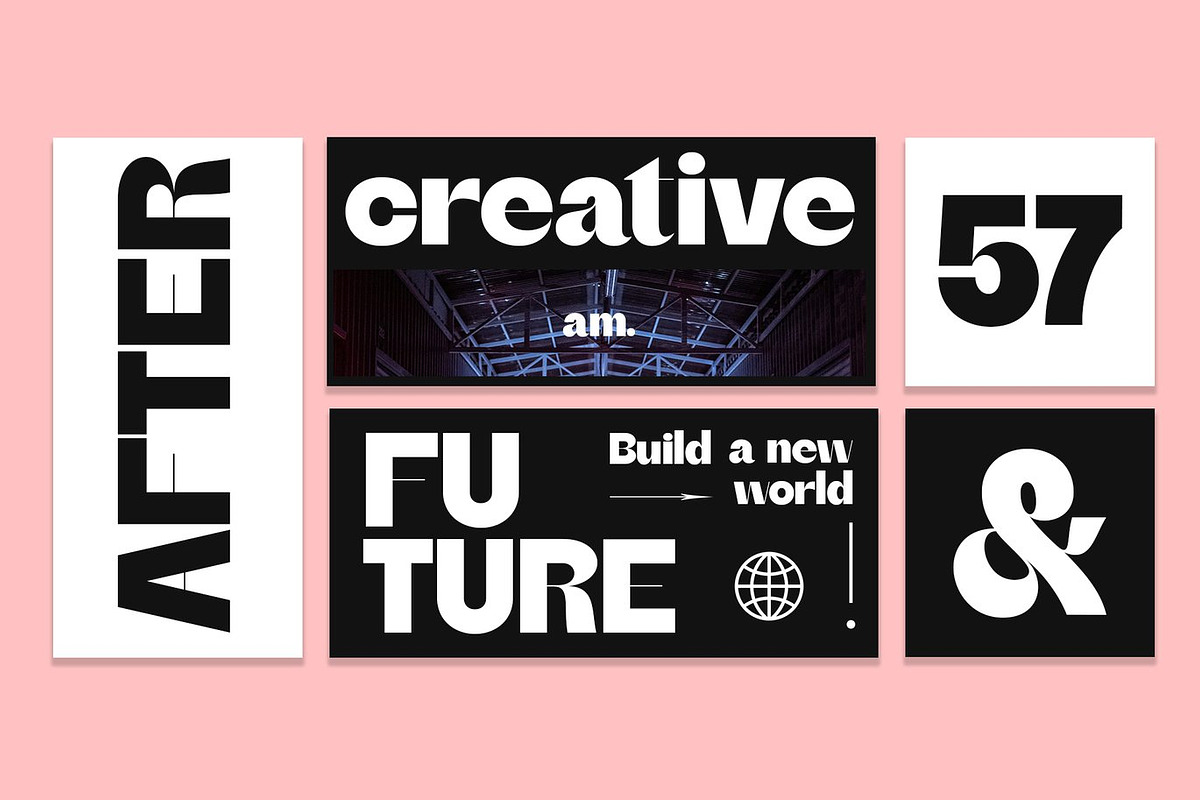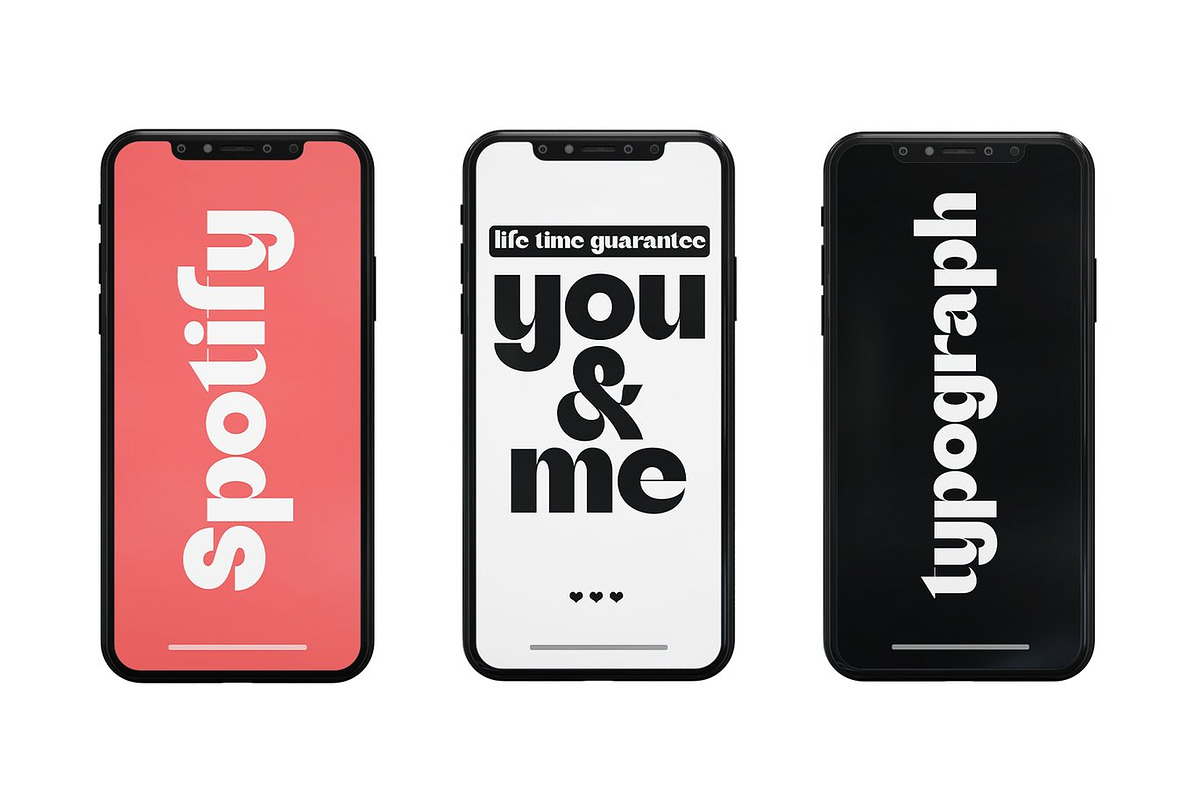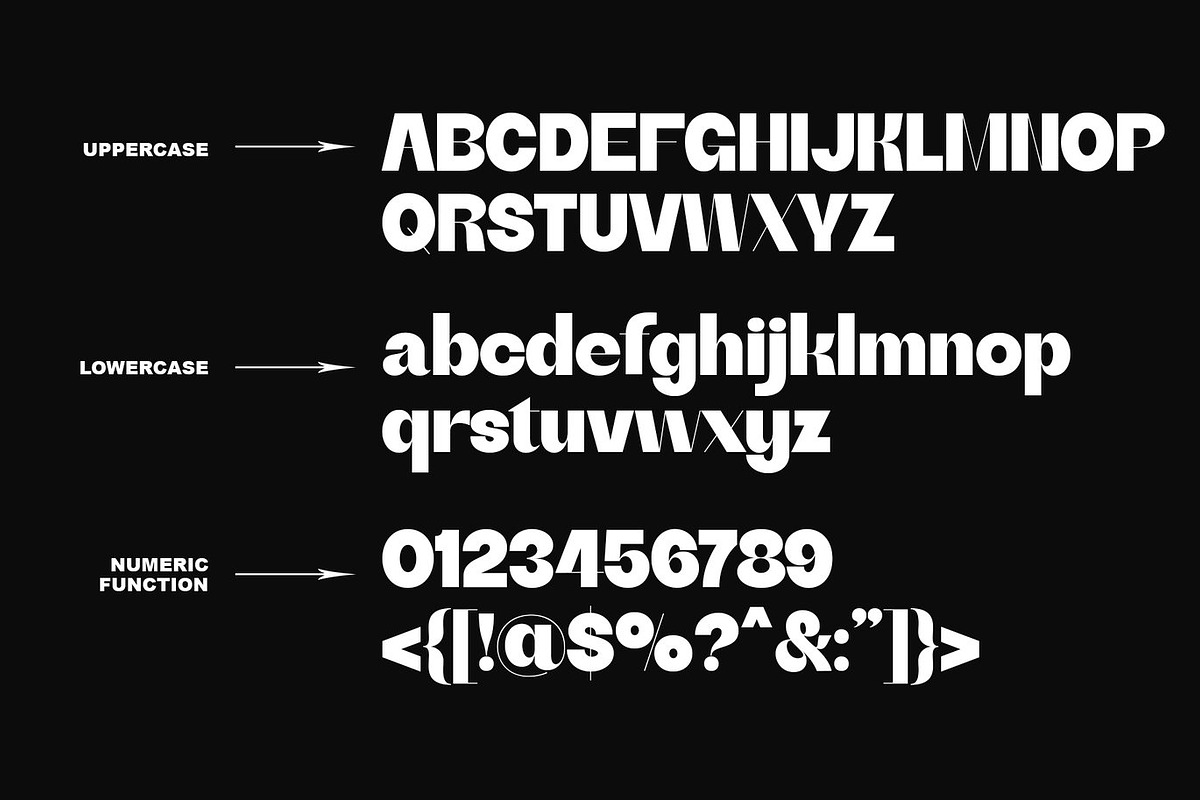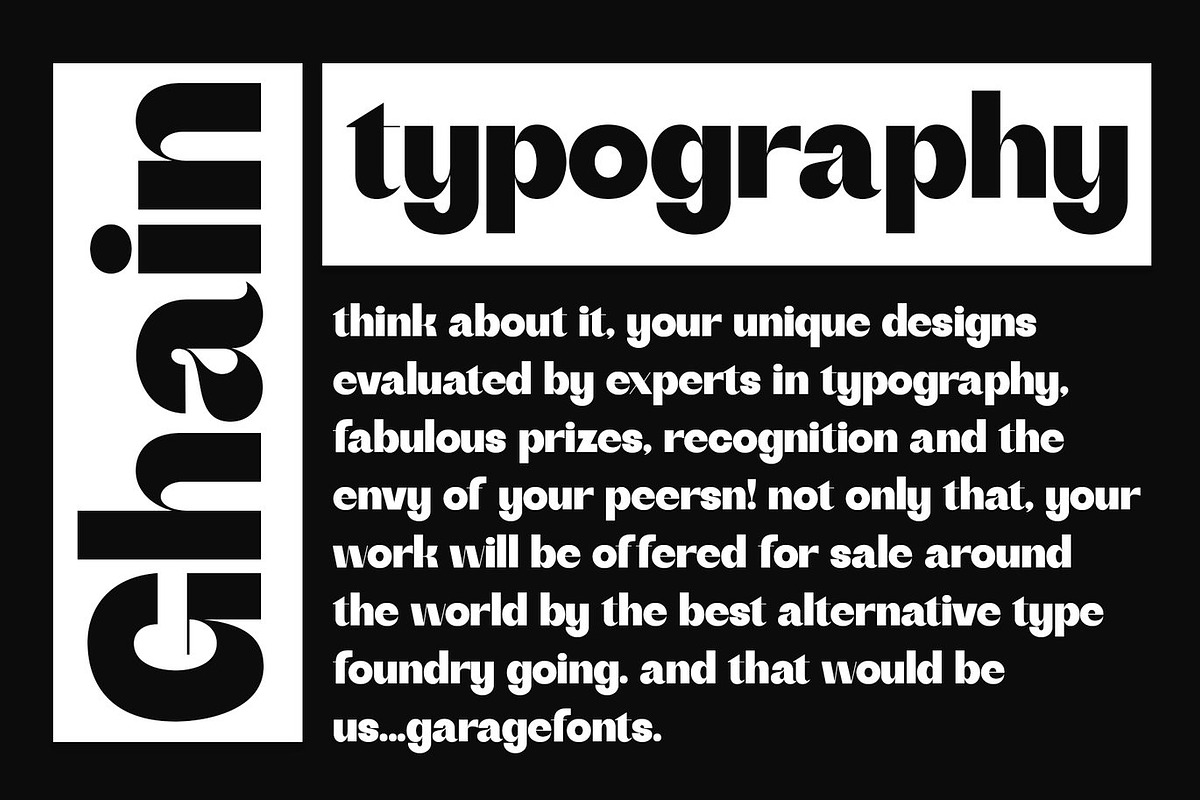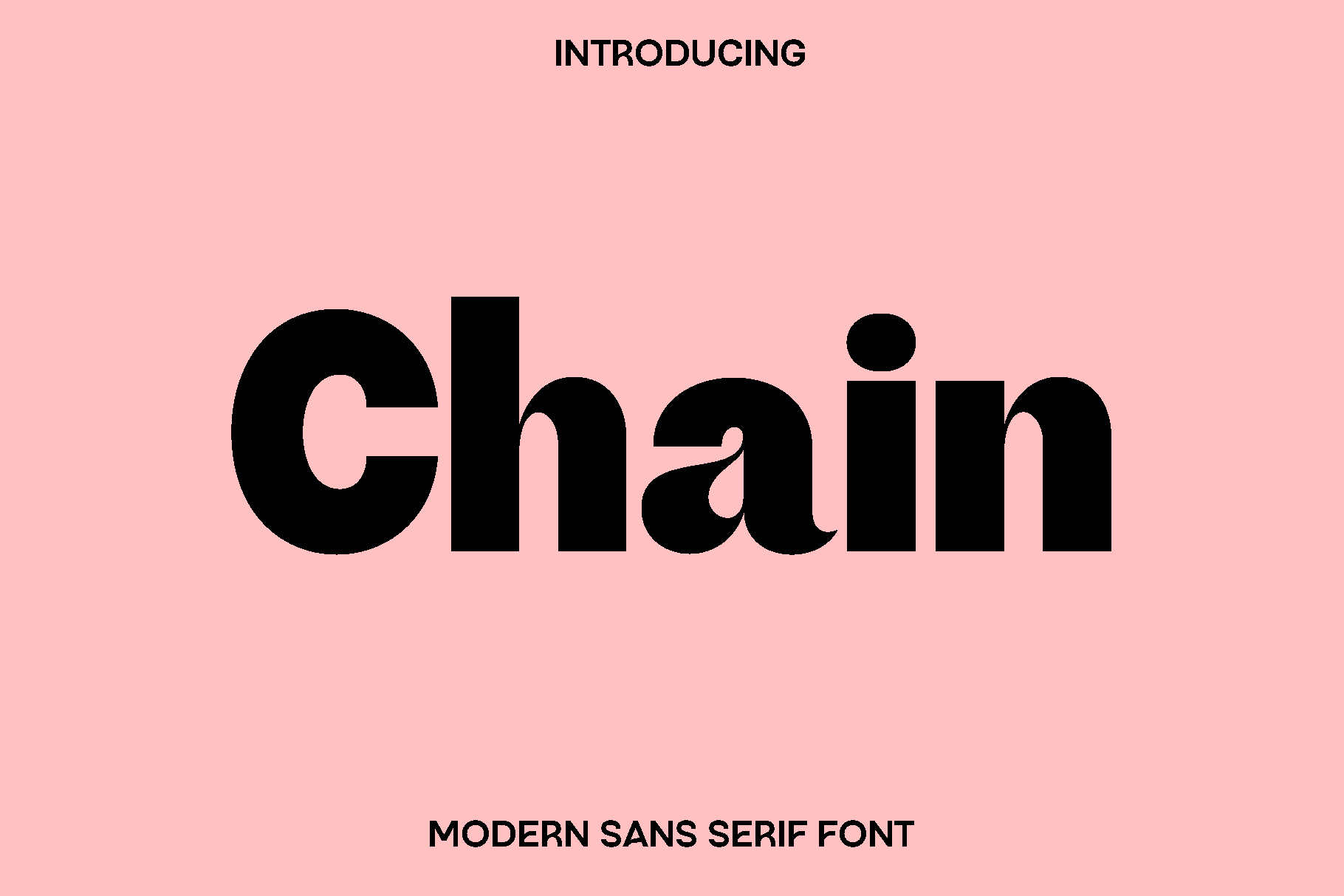
Chain - Modern Sans Serif Font
Chain is a modern sans serif font designed to deliver clarity, strength, and contemporary style. Inspired by clean geometric structures and minimalist design principles, Chain brings a refined and professional look to any creative project. Its balanced letterforms and smooth proportions create a modern typographic voice that feels confident, versatile, and highly readable.
This typeface is crafted for designers who value simplicity with strong visual impact. Chain works beautifully across a wide range of design applications, from editorial layouts and book covers to logos, branding identities, and advertising materials. Its clean lines allow text to remain clear and elegant, whether used for large headlines or supporting body text. The modern aesthetic makes it especially effective for magazines, blog headers, posters, photography overlays, quotes, and social media graphics.
Chain offers a timeless sans serif style that adapts easily to both print and digital environments. Its minimalist personality allows it to complement many design directions, from corporate branding to creative visual compositions. With its professional appearance and excellent readability, Chain helps designers communicate ideas clearly while maintaining a stylish and polished presentation.
• Uppercase and lowercase characters
• Numerals and functional punctuation
• Clean and modern letterforms
• Multilingual support
• Highly readable for both display and text use
Chain is a versatile modern typeface that brings balance, clarity, and contemporary elegance to your design toolkit. Perfect for creators who want typography that feels modern, professional, and visually refined.